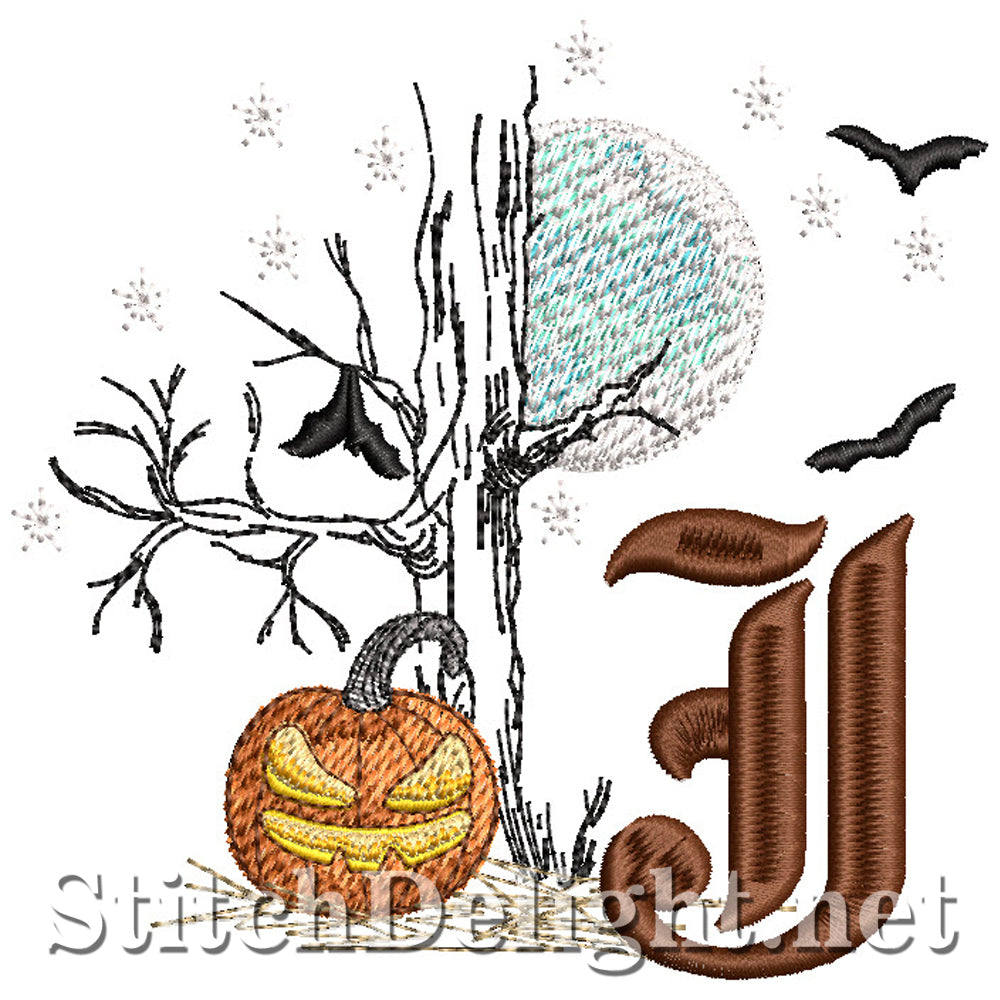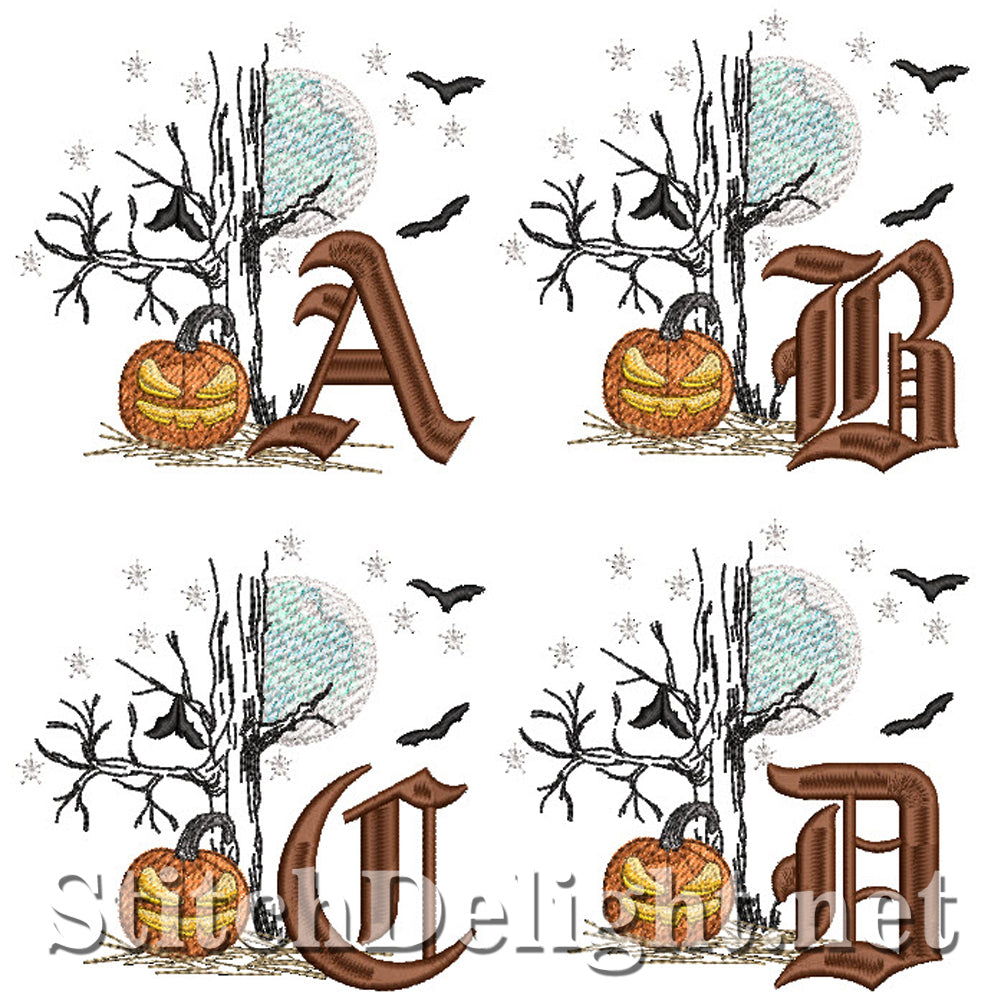
SDS1781 Nightly Horror Font U
A scary font just perfect for any Halloween project or monster enthusiast. This scary font is compatible with hoop sizes 4x4 and up! The matching font is HOE0094 Ancient Typography, simply search for HOE0094 ;)